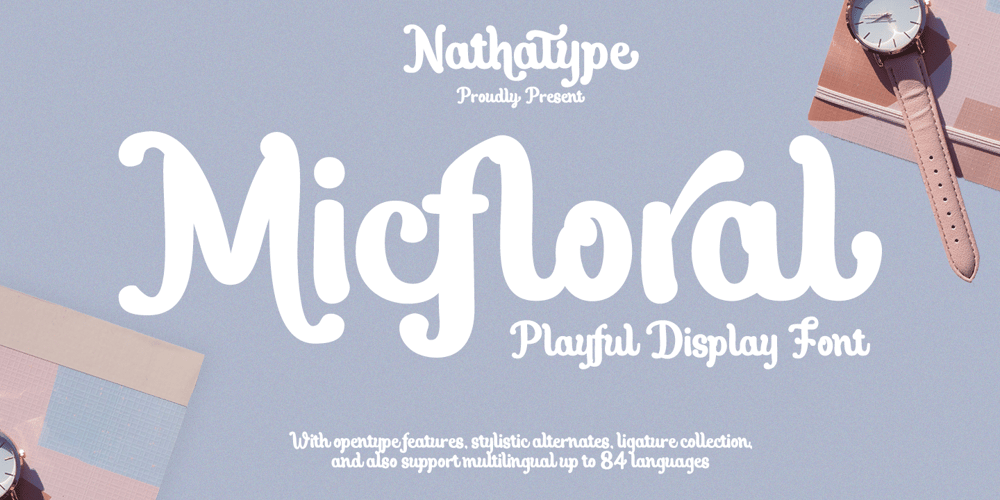
Micfloral Font Family was designed by Donis Miftahudin and published by Nathatype. Micfloral contains 1 styles and family package options. Do you have dream to delve into the rich depths of history? Are you ready to make your branding bold? Then, we’ve got what you want to.Micfloral-A Display FontMicfloral is designed with perfectly balanced between playfulness and refinement, this display font delivers your message with style. Use it for social media branding projects, book cover, fashion designs, printed quotes, packaging, or even as a stylish text overlay to any background image. Our font always includes Multilingual Support to make your branding reach a global audience. Features:- Ligatures- Stylistic Sets- Swashes- PUA Encoded- Numerals and PunctuationThank you for downloading premium fonts from Nathatype